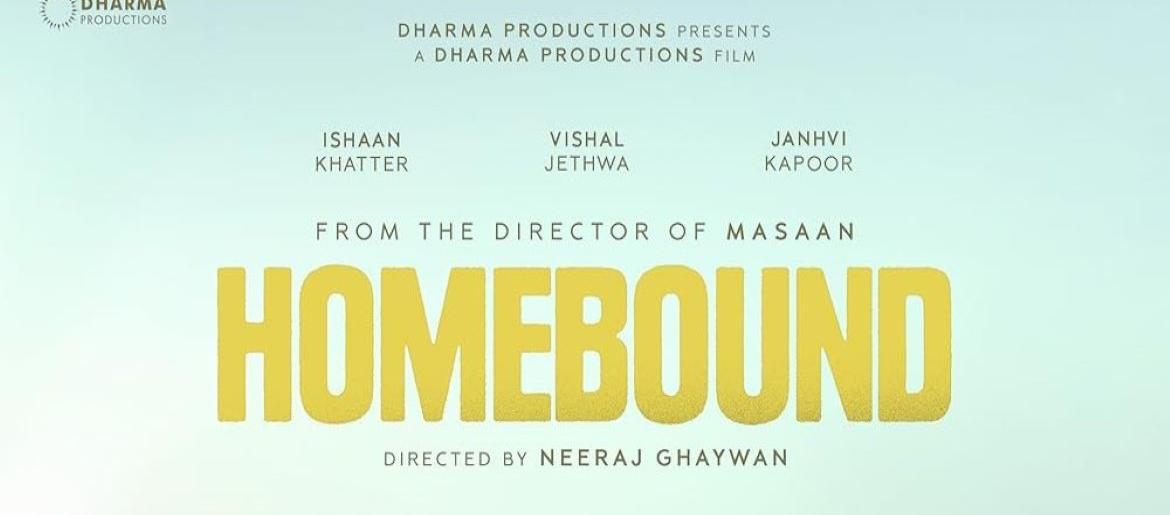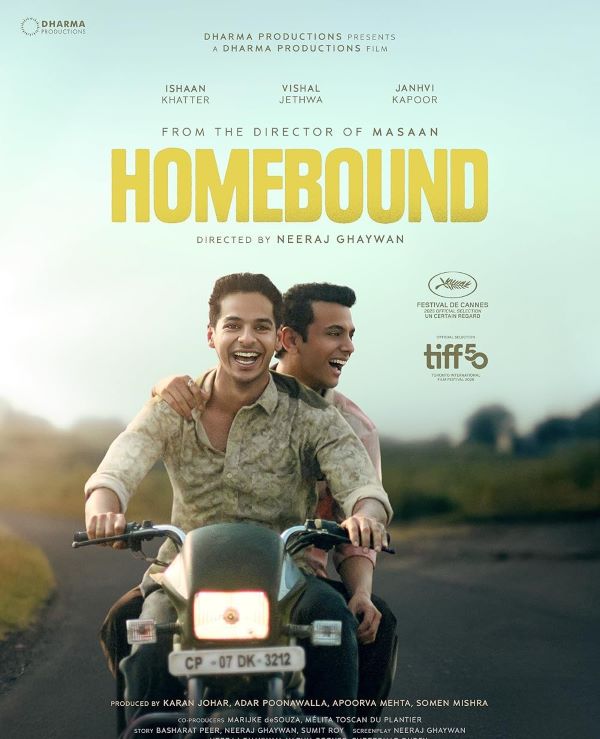
Homebound Font
What Font is Homebound?
The Homebound Font used in the film’s title is Plak Com Black Condensed by Linotype — a bold, tightly spaced typeface that radiates strength and emotional tension. Its condensed letterforms and heavy weight make it visually striking, perfectly matching the dark and dramatic undertones of the movie. The font’s intense style helps convey a sense of unease and suspense that reflects the film’s gripping narrative.